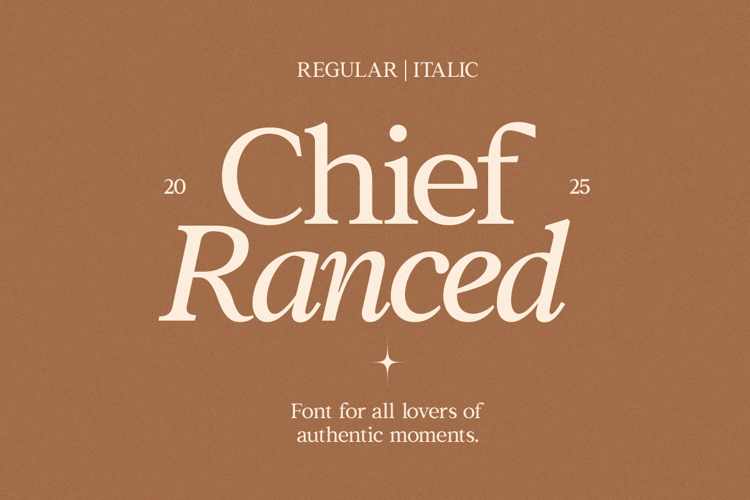
GC Chief Ranced Font
GC Chief Ranced – Serif Elegant Font is a refined serif typeface crafted to embody elegance, sophistication, and timeless beauty within modern design contexts. Built on graceful proportions and delicate yet confident letterforms, Chief Ranced delivers a distinctive voice that feels both classic and contemporary.
Designed as a versatile serif family, GC Chief Ranced transitions effortlessly from subtle editorial text to expressive headline statements. Its balanced contrast, smooth curves, and carefully shaped serifs create a harmonious rhythm that enhances readability while maintaining a luxurious presence.